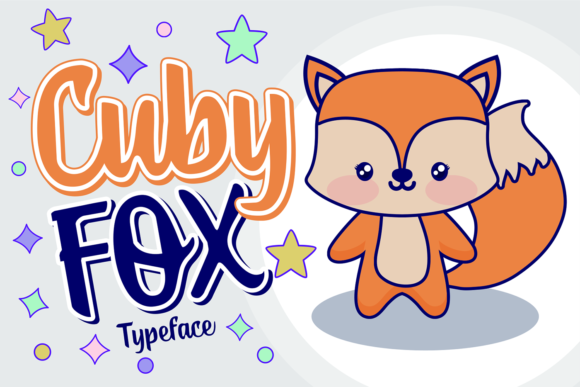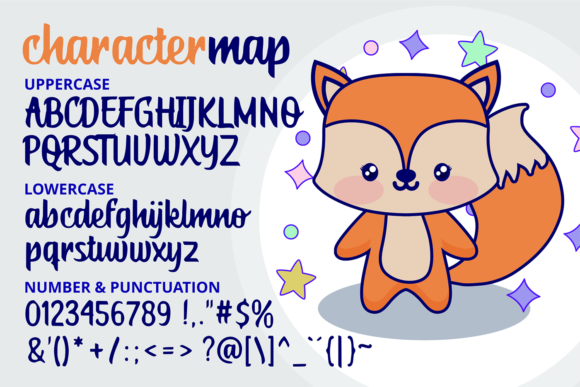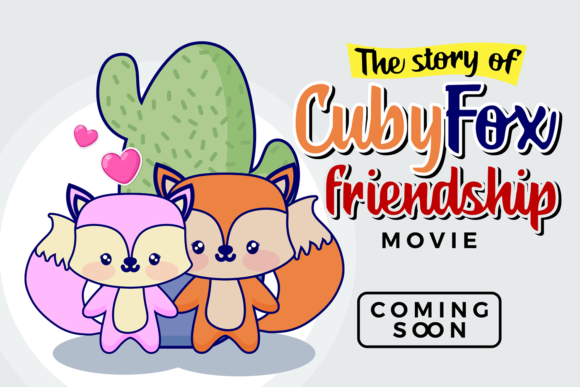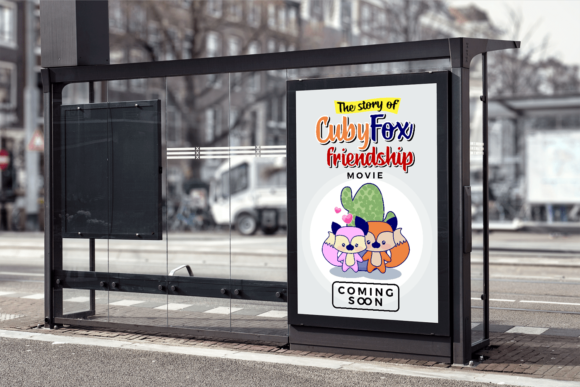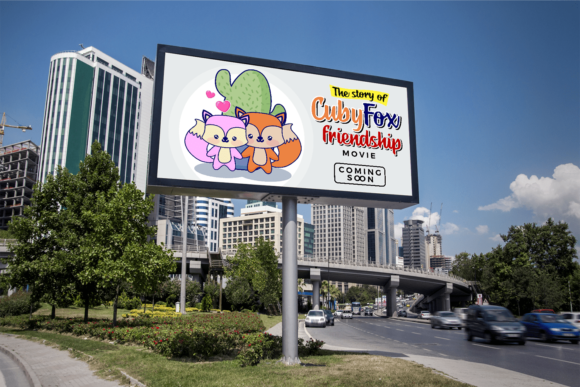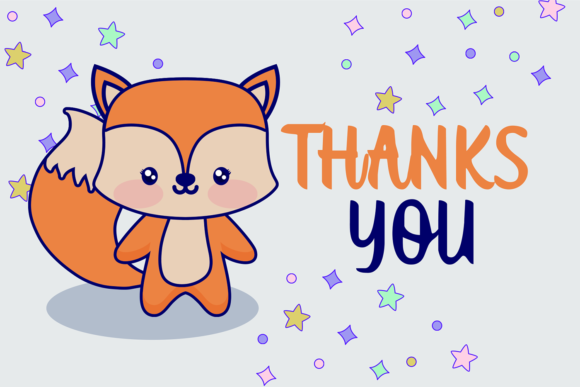
Cuby Fox Font
About Cuby Fox Font
Cuby Fox is a cute handwritten font, carefully handcrafted to become a true favorite. This font is the perfect fit for all of your logos, branding, social media, and crafty DIY projects.